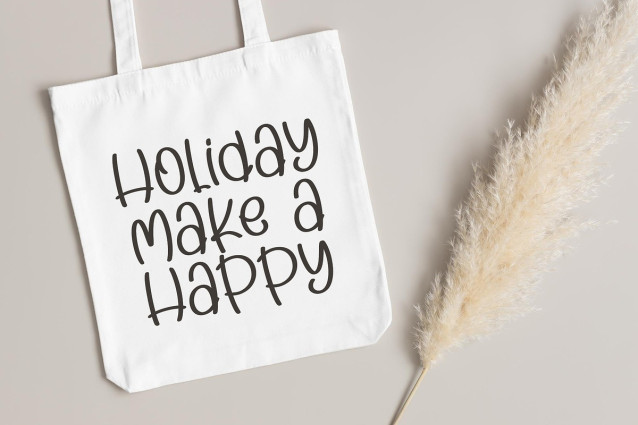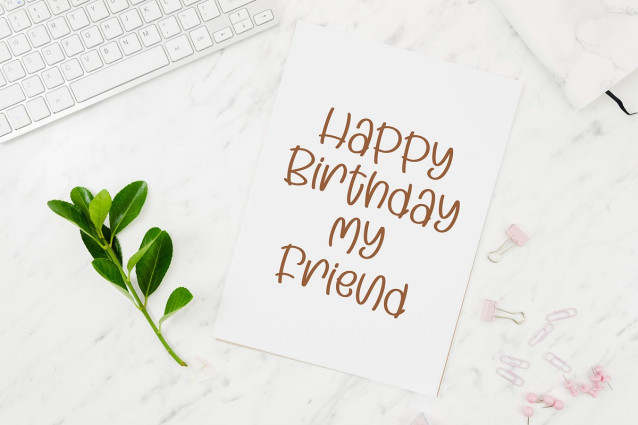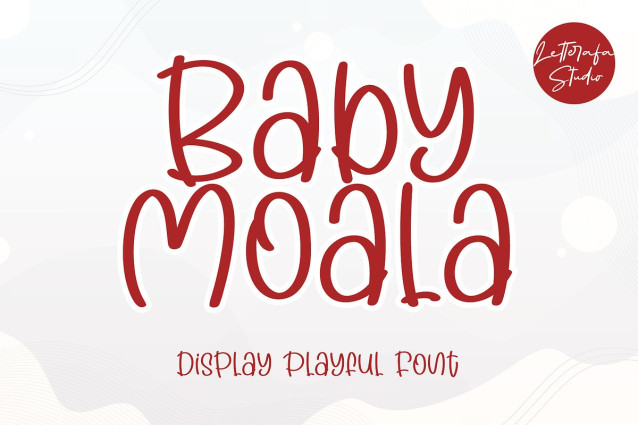
Baby Moala Handwriting Font
Baby Moala Handwriting Font is a simple, fun and display handwritten font. This adaptable font will look great on a variety of design ideas. It will add a fun and friendly touch to each of your projects!